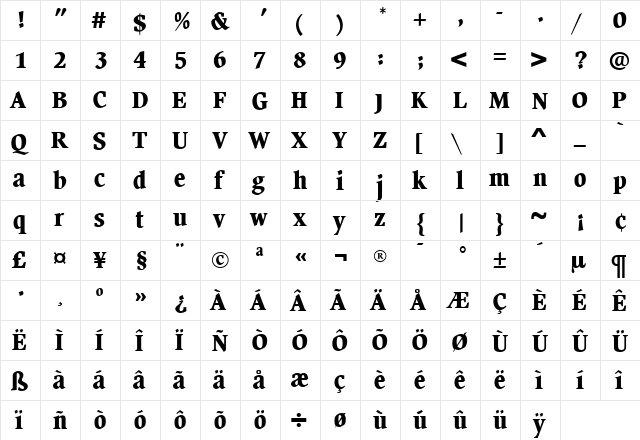
BeckenhamExtraBold Roman Font Preview
BeckenhamExtraBold Roman
BeckenhamExtraBold Roman Font Details
Design Context for BeckenhamExtraBold Typeface
BeckenhamExtraBold takes a measured approach to typography — its balanced proportions and neutral character make it a reliable workhorse for both digital and print work. Its bold stroke weight gives it real presence on the page.